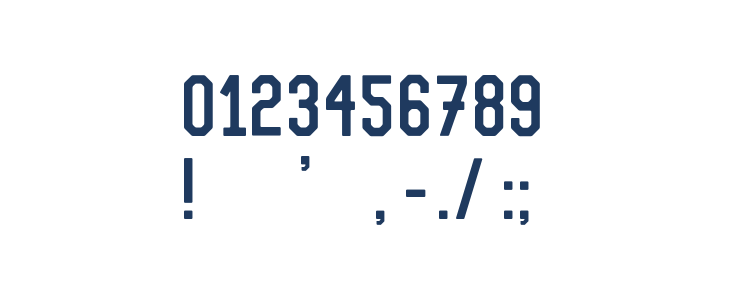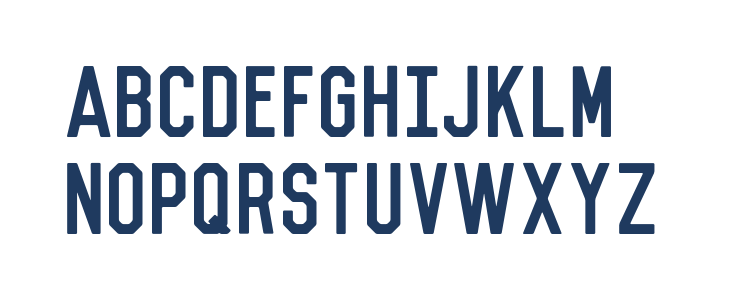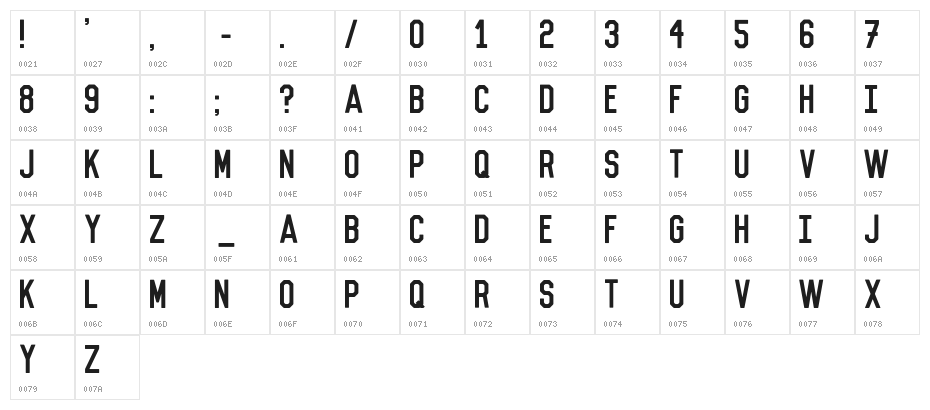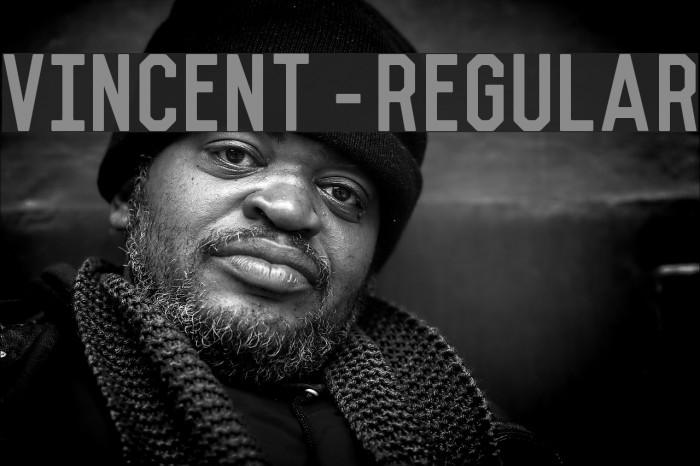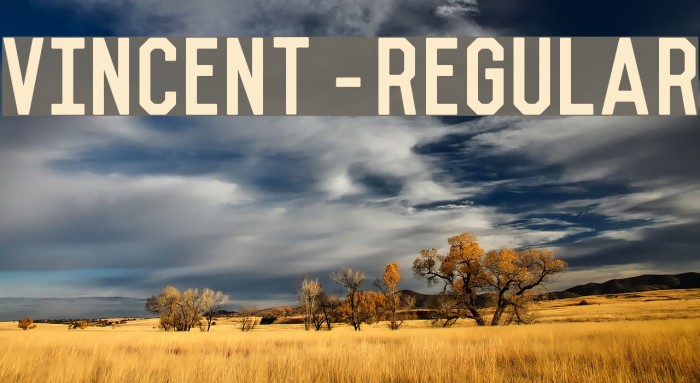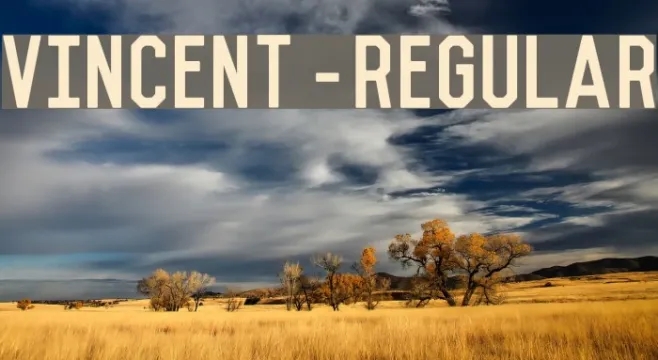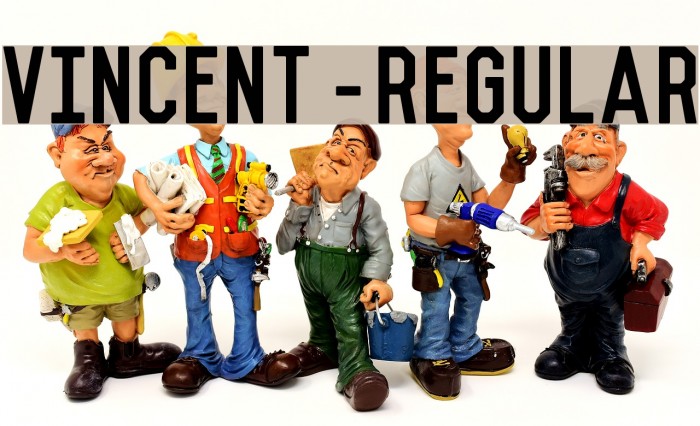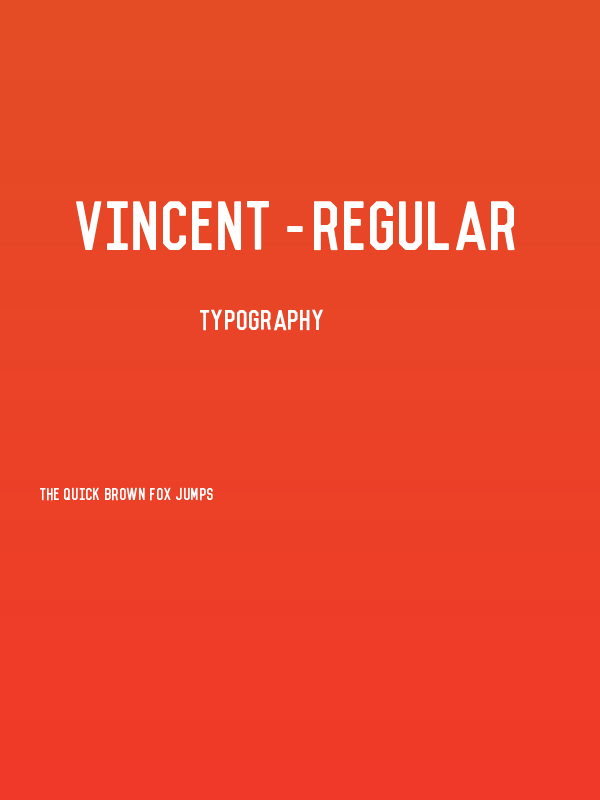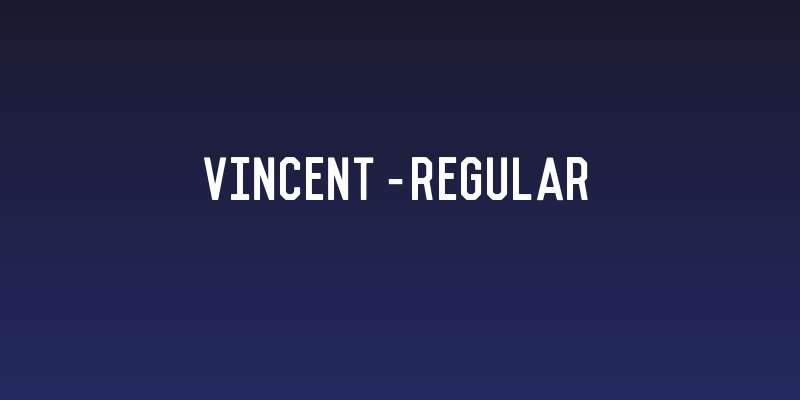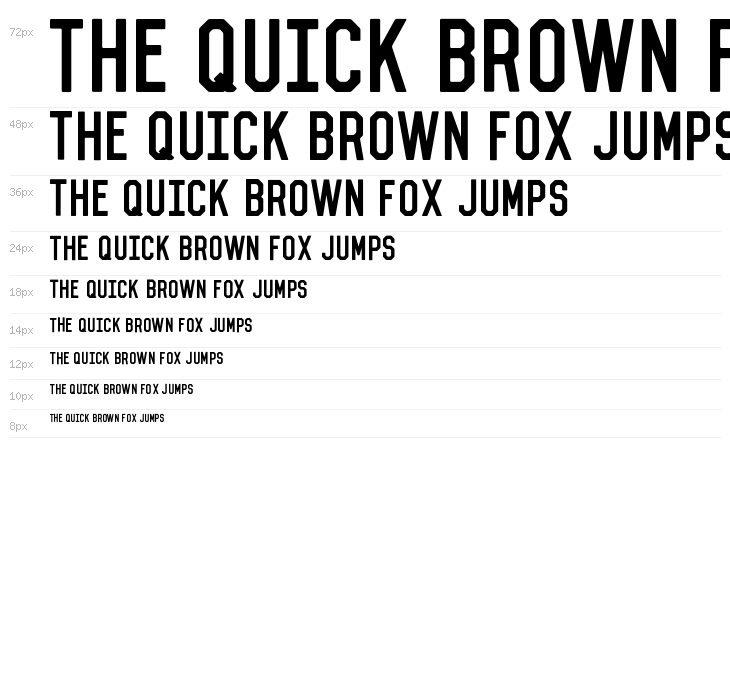
Vincent-Regular Font
Vincent-Regular Description
This font features a bold and geometric design with strong, angular lines and a modern aesthetic. The characters are uniformly structured, offering a consistent and clean appearance. The uppercase letters are particularly striking, with a blocky and robust form that commands attention. The numerals and special characters maintain this cohesive style, ensuring readability and visual impact. The overall design is both functional and stylish, making it suitable for a variety of applications where clarity and boldness are desired.
| Proposed Projects | Ideal for branding, posters, headlines, and any design project requiring a bold and modern typeface. |